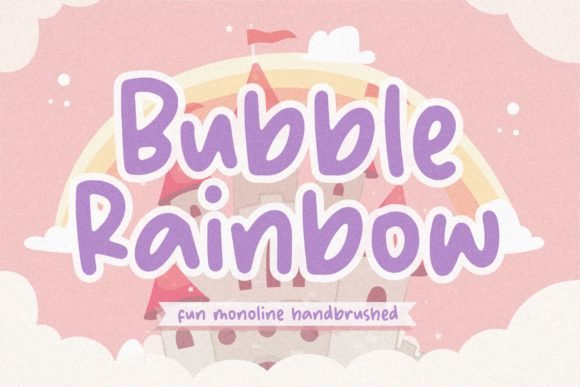
Unleashing Whimsy in Your Designs
Have you ever found yourself doodling in a notebook, lost in a world of colorful chaos? For many creatives, this carefree moment is where the magic happens. As we let our imagination run wild, we stumble upon unique ideas that bring our projects to life. This is exactly what happened when the Bubble Rainbow Font was born – a delightful, hand-painted display font that’s sure to capture the hearts of designers and children alike.
The Bubble Rainbow Font is a perfect blend of fun and whimsy, making it an ideal choice for children-themed designs. When combined with bright colors, this font truly comes alive, transporting viewers to a world of wonder and excitement. As a designer, incorporating the Bubble Rainbow Font into your work can add an extra layer of depth and personality, setting your projects apart from the rest.
Bubble Rainbow Font Key Features
- Unique Characteristics: The Bubble Rainbow Font features a distinctive, hand-drawn design with a mix of cursive and sans-serif elements, creating a playful and whimsical feel.
- Color Options: This font comes in a range of vibrant, pastel colors, allowing users to customize the look to suit their design needs.
- Language Support: The Bubble Rainbow Font supports a wide range of languages, including Latin, Cyrillic, and Greek alphabets, making it suitable for international designs.
- Scalability: This font is highly scalable, allowing it to be used effectively in various design contexts, from small text to large headlines.
Bubble Rainbow Font Review
Overall, I was excited to dive into the world of Bubble Rainbow Font, and I must say, it has its charm ✨. The bubbly, rainbow-colored aesthetic is perfect for adding a playful touch to your designs. The font’s dynamic feel and movement create an energetic vibe that’s sure to grab attention.
- The unique color palette adds a pop of fun to any design ✨.
- The font’s dynamic feel creates a sense of movement and energy.
- It’s perfect for adding a whimsical touch to children’s products, party invitations, or other playful designs.
- ⚠️ The font may be difficult to read in certain contexts, such as body text or for people with visual impairments.
- ⚠️ The font’s bold, playful nature may not be suitable for more formal or professional designs.
- ⚠️ Some users may find the font too flashy or overwhelming.
In conclusion, Bubble Rainbow Font is a fun, playful font that’s perfect for adding a pop of color and energy to your designs. While it may have its limitations, it’s a great choice for those looking to add a whimsical touch to their work.
The Bubble Rainbow Font is ideal for:
- Children’s book illustrations and educational materials
- Party invitations and event branding
- Wedding and birthday decorations
- Fun and playful digital content